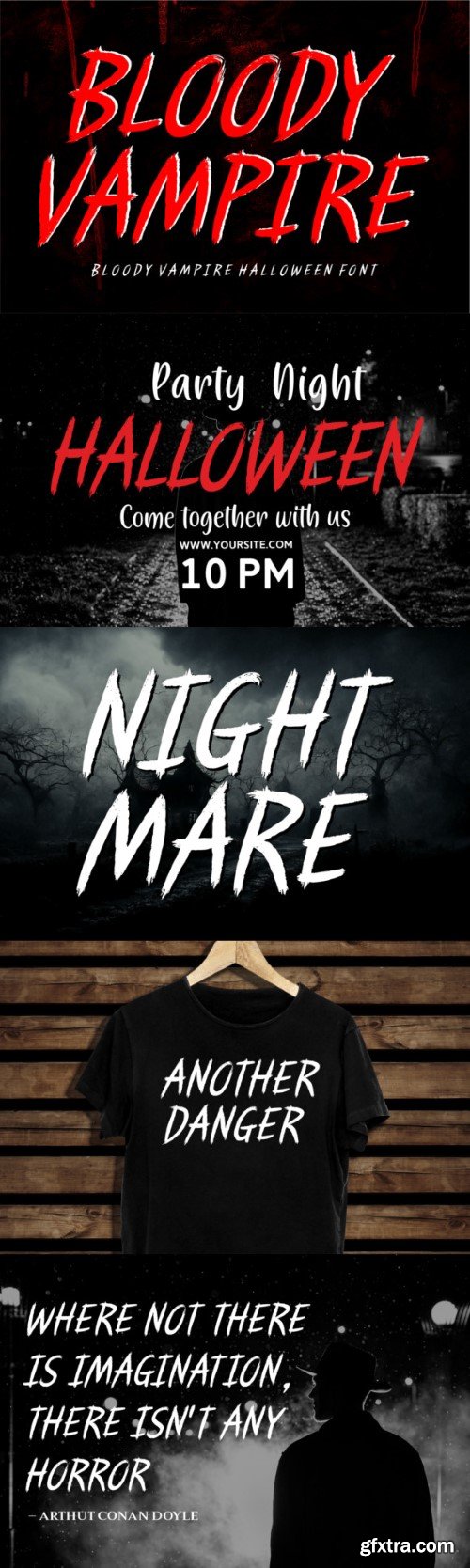
血腥 vampire 字体
Bloody Vampire is a spine-chilling Halloween font that sends shivers down your spine. Each letter stands tall and bold, written in blood, perfect for spooky invitations, haunted house signage, and eerie party decorations. Unleash the terror of Halloween with this creepy and captivating font, sure to give your projects an extra dose of frightful fun!